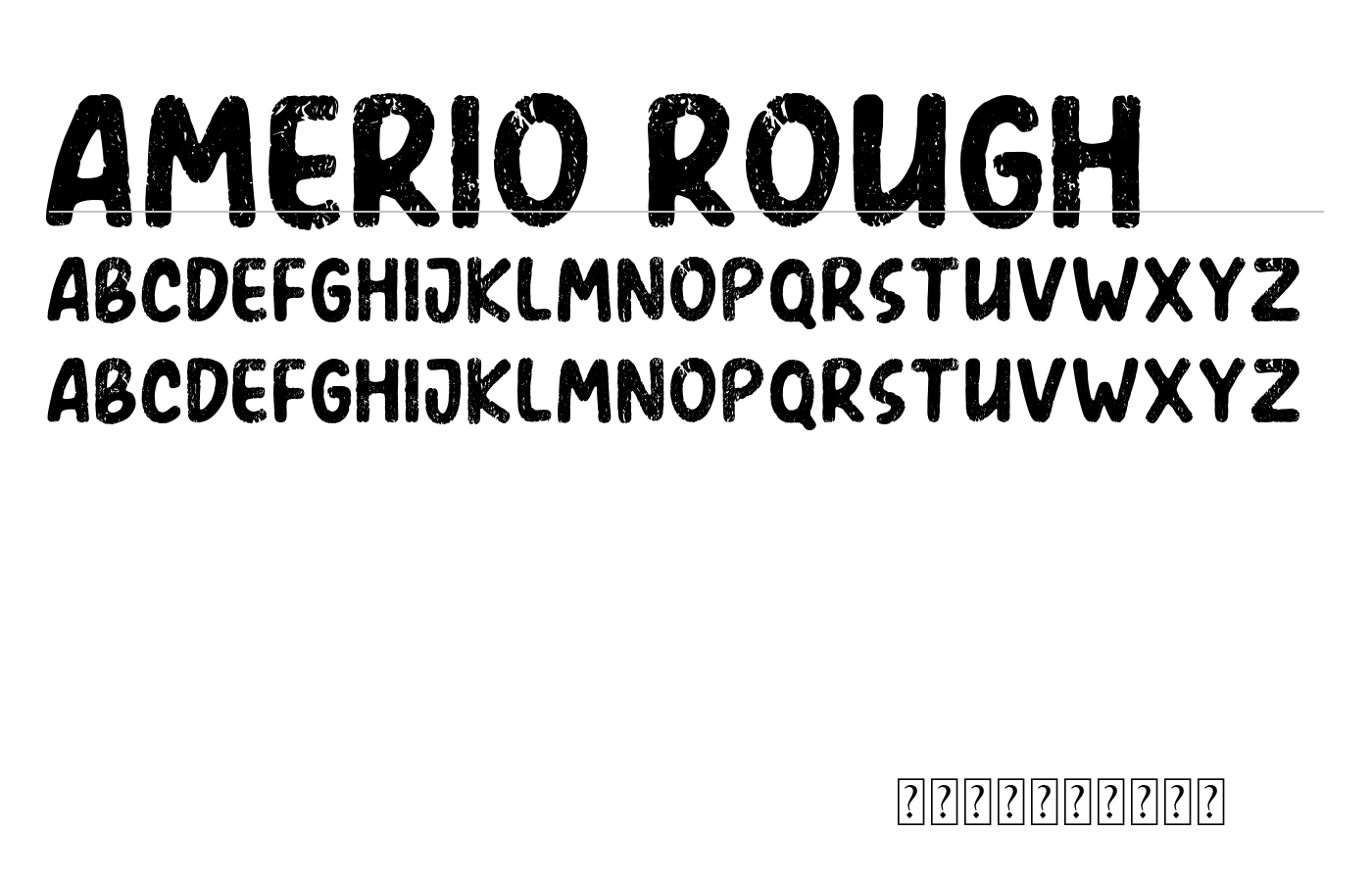
Amerio Rough is a bold, sans serif display font with a distinctive handcrafted, textured look that adds a raw, organic feel to its bold letterforms. Its irregular edges and rough stroke details make it ideal for casual, playful, or artistic designs that want to stand out with a natural, imperfect charm. This font works great for posters, branding, and creative projects where a bold, informal personality is desired.
Amerio Rough Font
About Amerio Rough Font
| Font family | Amerio Rough Font |
| Designer | Rangga Singgih Subekti |